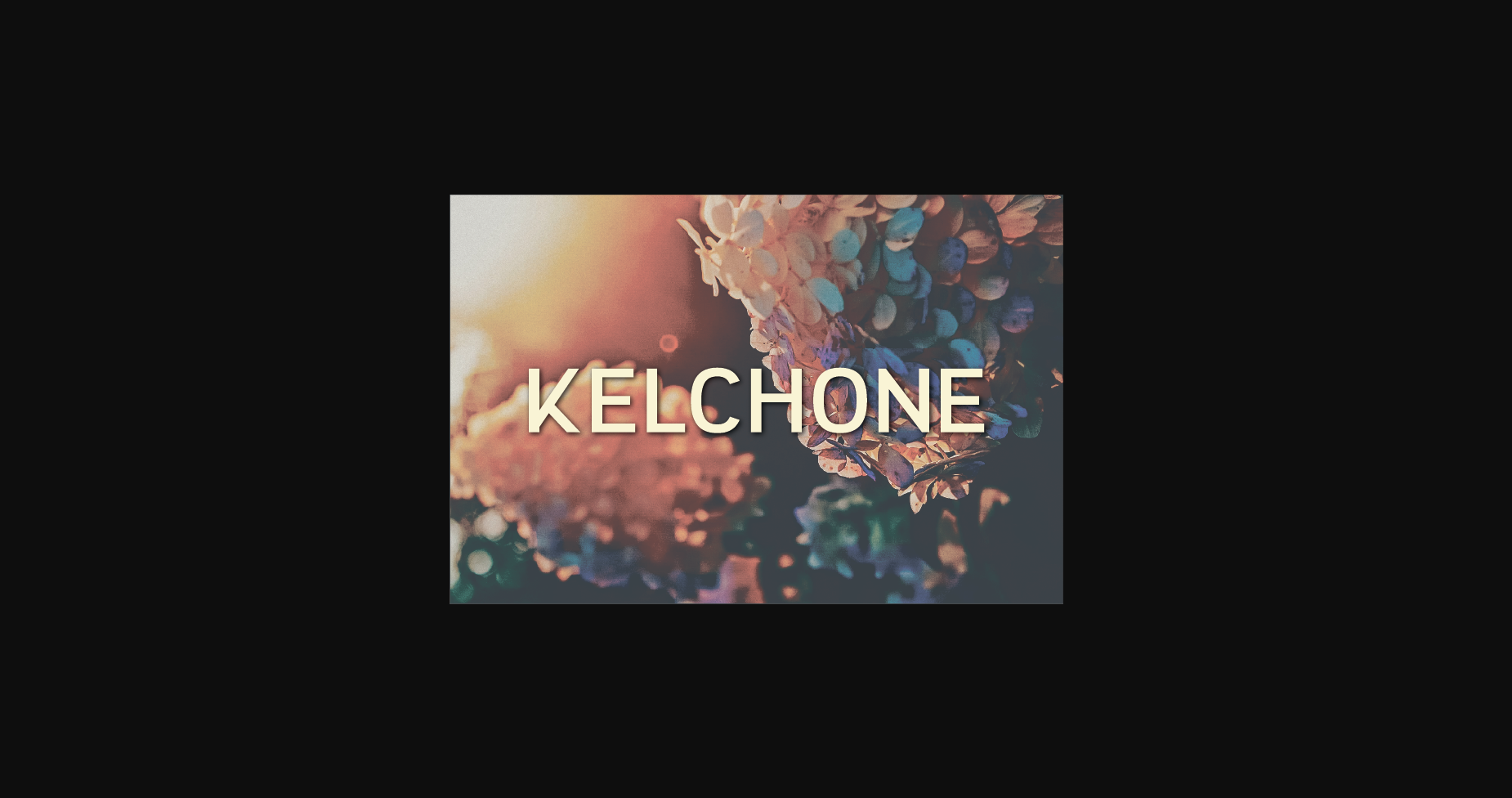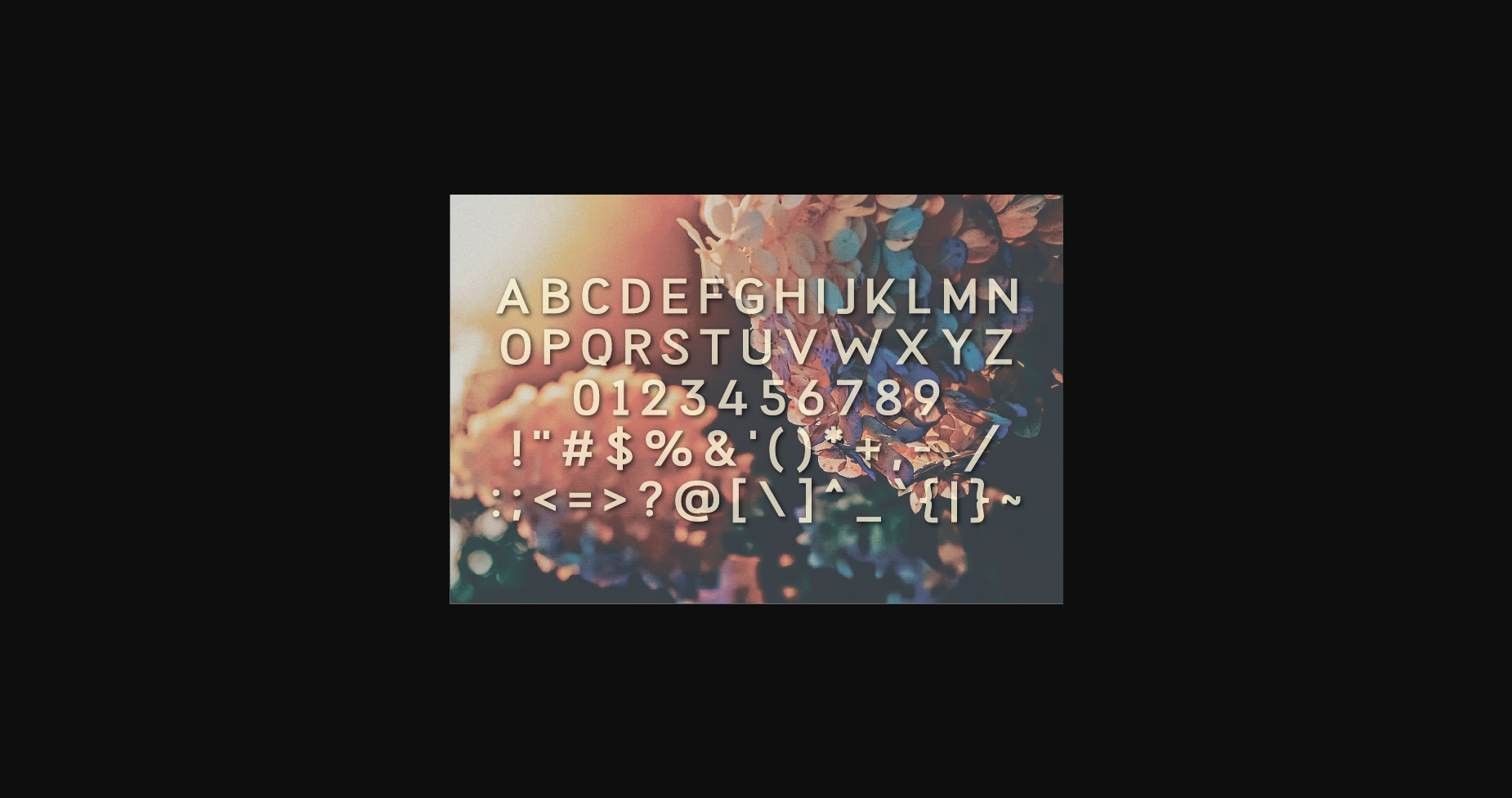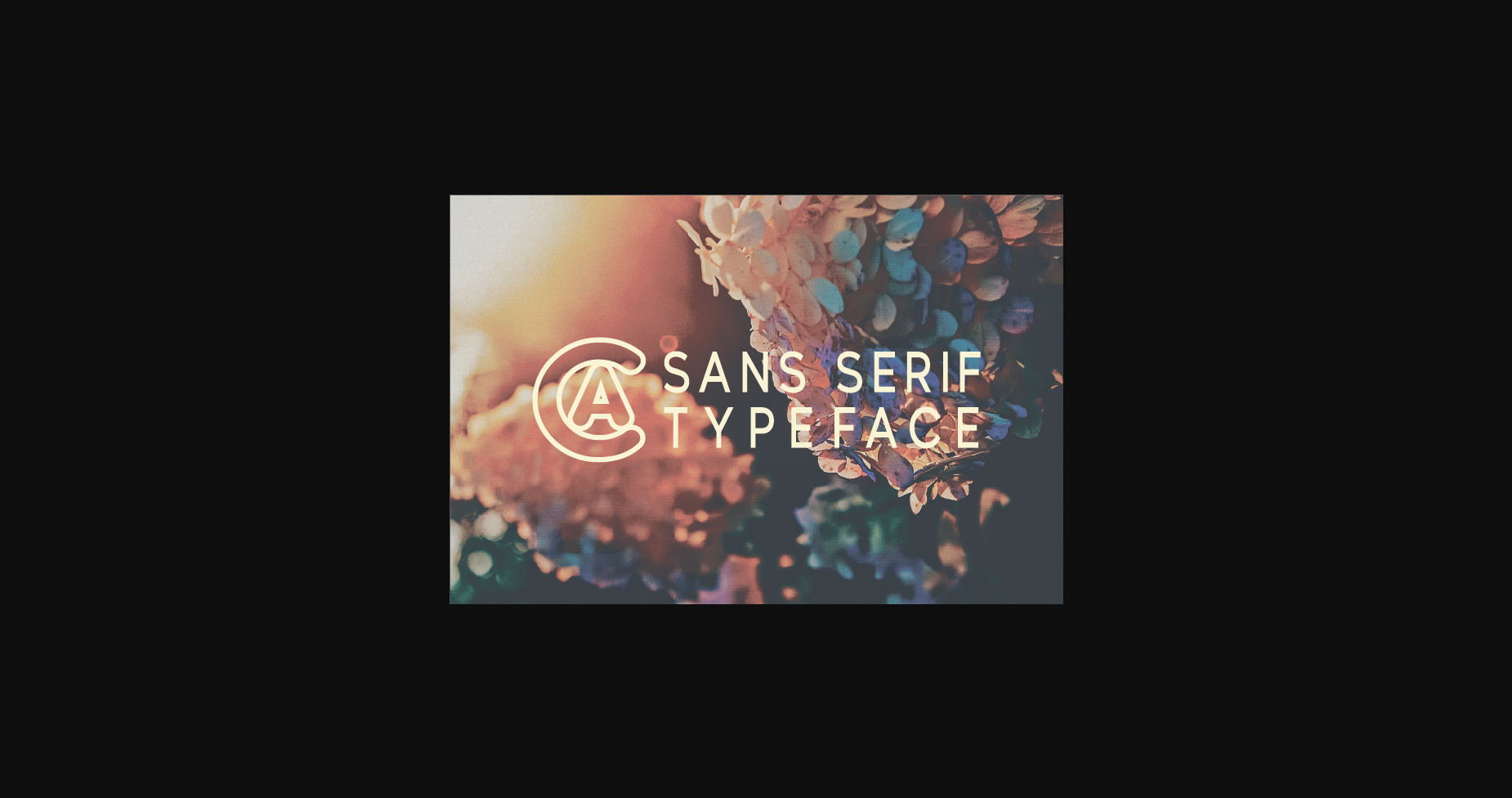
About Kelchone Font
Kelchoneis a simple and clean sans serif font. This font is suitable for designs such as t-shirts, sportswear, logos, advertisements, clothing, and more.